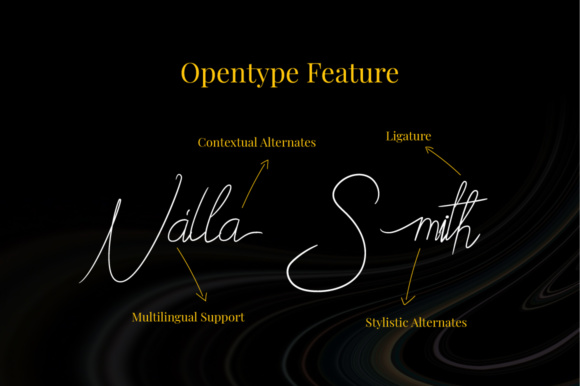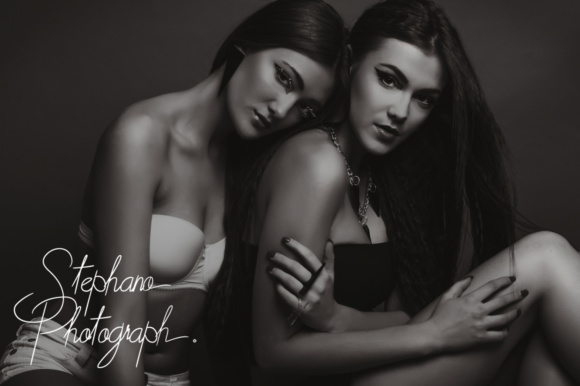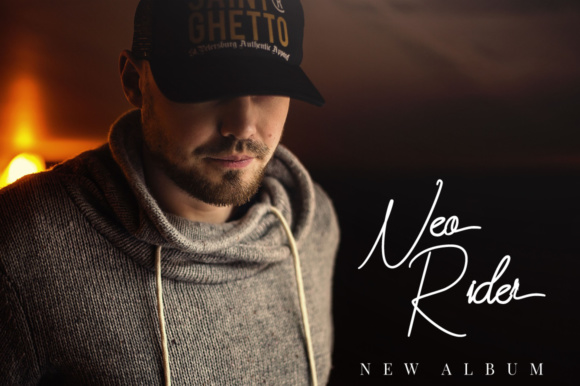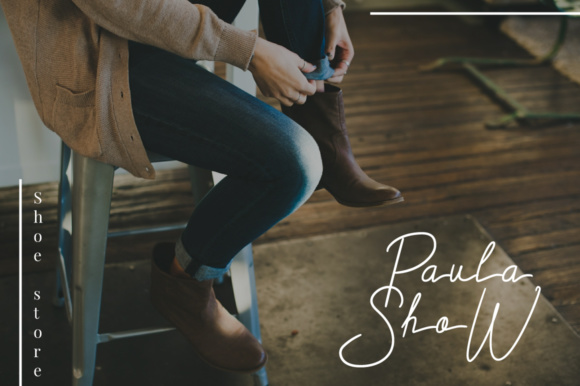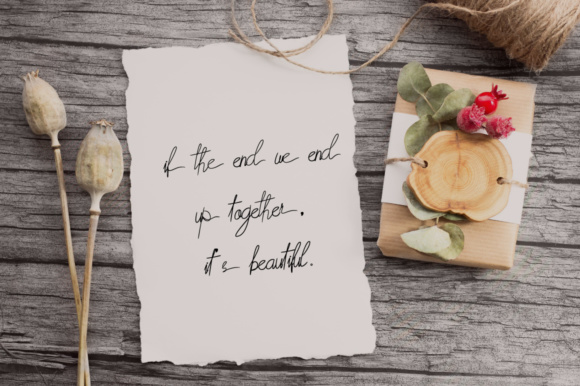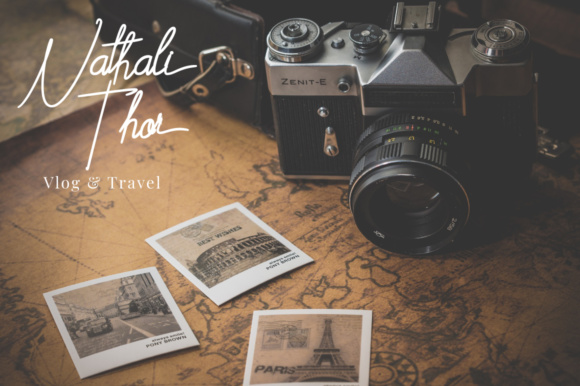
Introduction to Reed Hop Font Font
Fonts play a crucial role in design, and the Reed Hop Font font is a typeface that brings both character and versatility to any project. Whether you’re working on a branding project, a website, or a print design, the Reed Hop Font font offers a unique style that can elevate your work.
Reed Hop is a new, fresh handwritten script font.
Itβs script style make this font look natural, classy and perfect for any awesome projects that need handwriting taste Reed Hop is perfect for many different projects such as: logos & branding, social media posts, advertising, labels, photography, watermarks, special events and much more.
The Reed Hop Font font is more than just a typeface β it’s a design tool that helps you communicate your message with style and clarity. Its unique character set and versatile design make it suitable for a wide range of applications, from elegant invitations to bold headlines.
With its carefully crafted letterforms and balanced proportions, the Reed Hop Font font ensures readability and visual appeal across all mediums.
The Reed Hop Font font stands out with its unique design, exceptional readability, and versatility across various design applications.